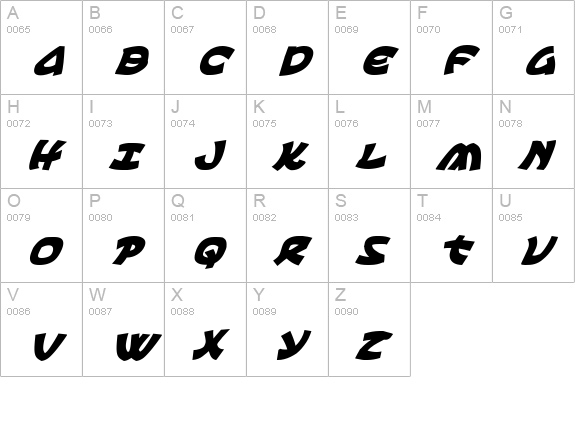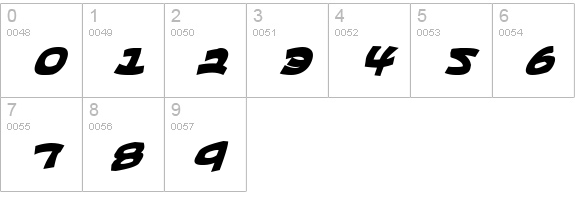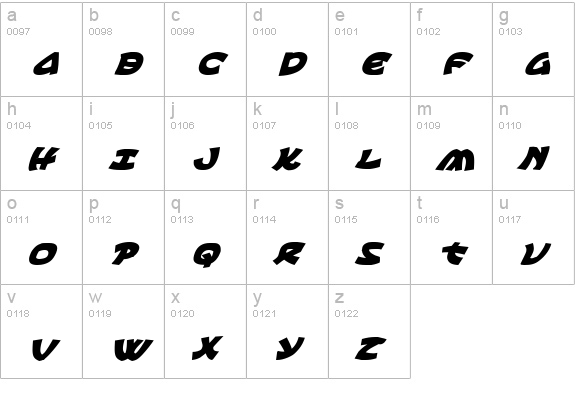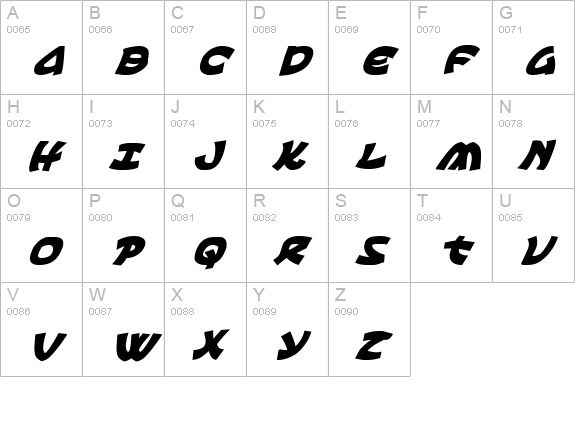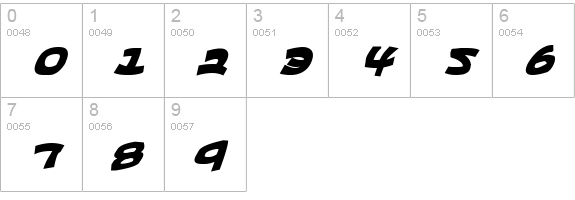
Introducing Ephesian CondBoldItal font - a striking and elegant typeface that exudes sophistication and modernity. With its bold yet delicate strokes, this font is perfect for creating eye-catching designs that demand attention. The unique blend of boldness and elegance makes Ephesian CondBoldItal font a versatile choice for a wide range of projects, from branding to editorial design. And the best part? Ephesian CondBoldItal font is completely free to download at FontsMarket.com! This means you can elevate your designs with this stunning typeface without breaking the bank. Don't miss out on the opportunity to add Ephesian CondBoldItal font to your font library today and take your designs to the next level.